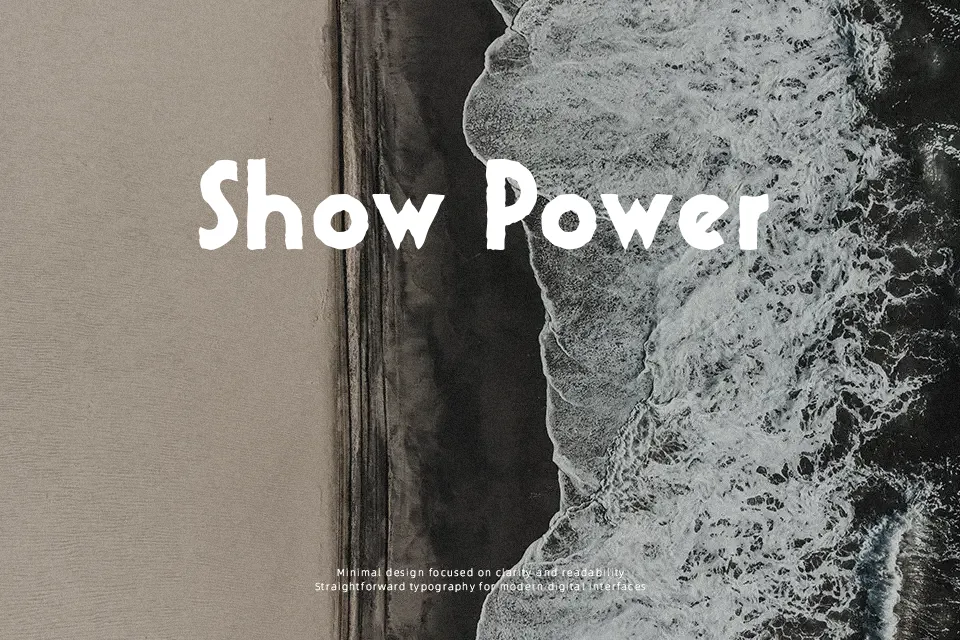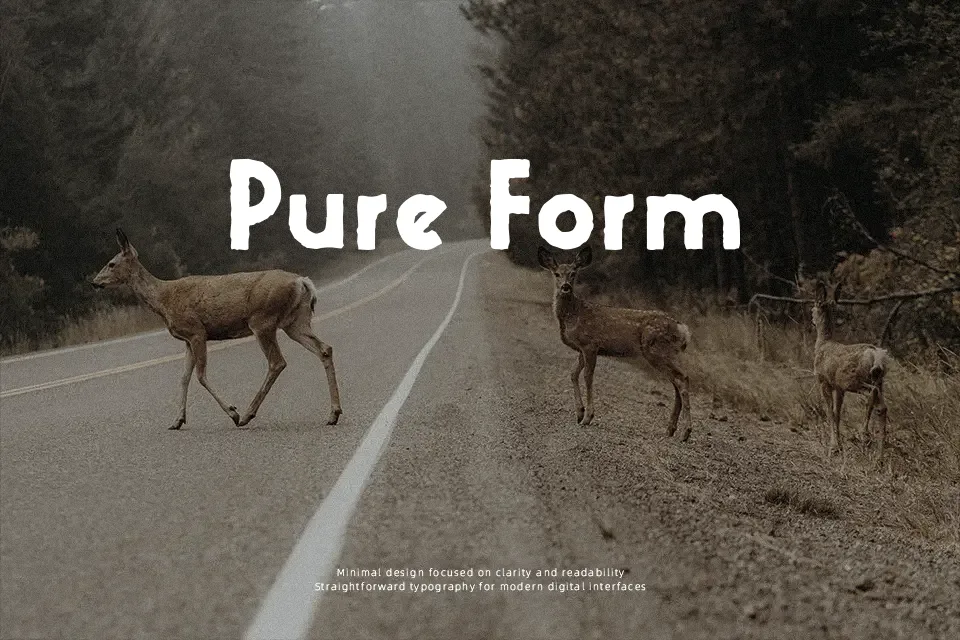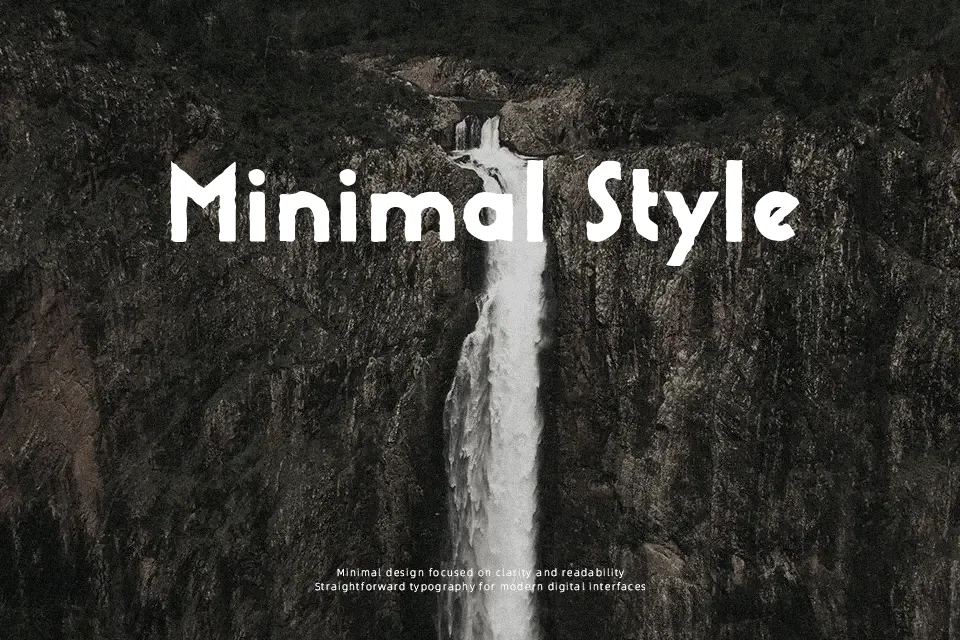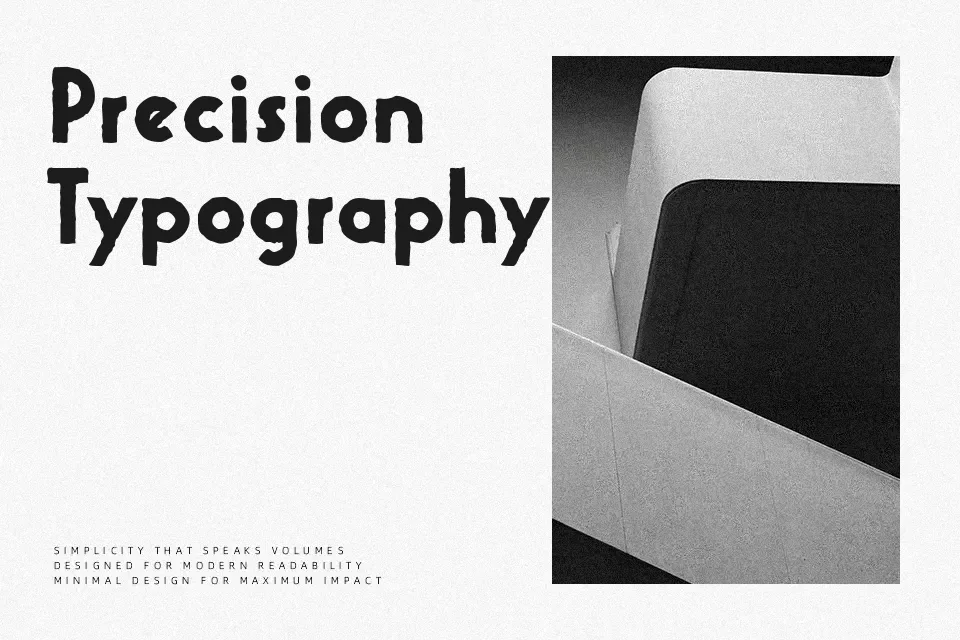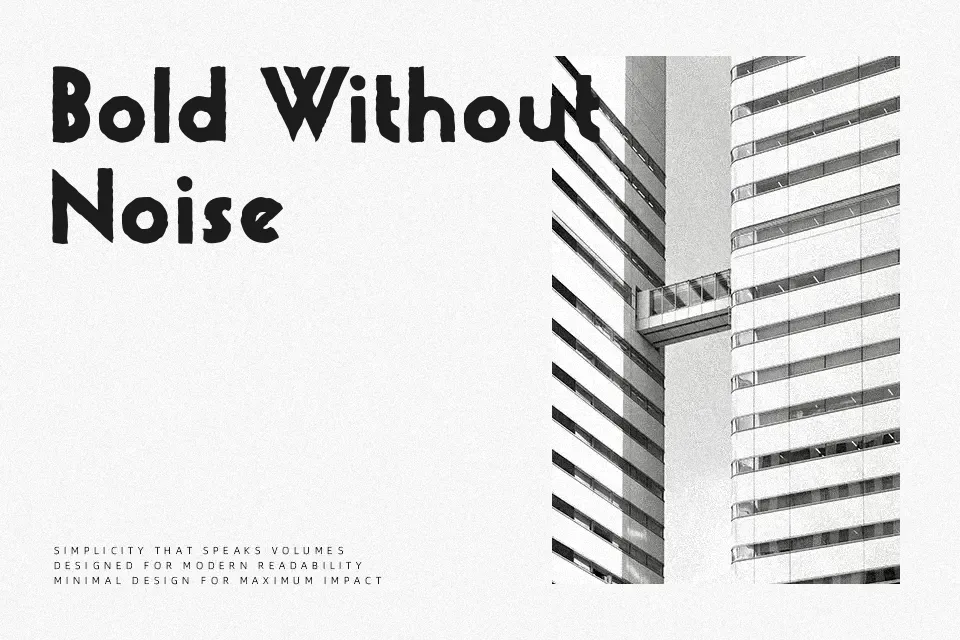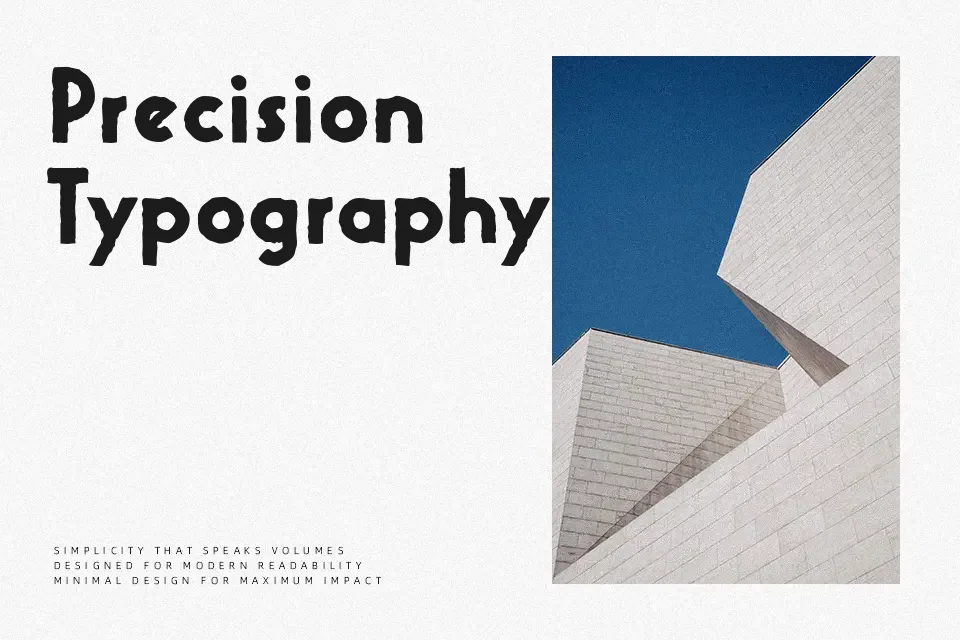
Urban Stone Font
Designed by Roland Huse Design
Urban Stone Font introduces a rugged display design characterized by bold, heavyweight sans serif proportions and heavily eroded, distressed stone textures. Solid structural silhouettes give the capitals robust visual presence, while the weathered internal cutouts and irregular ragged edges evoke aged concrete or weathered masonry. Character spacing is relatively tight to keep headline lockups dense and punchy across large-format compositions. While these eroded contours maintain distinct legibility at headline scales, the dense distressed patterns inevitably blur and deteriorate in continuous text or tiny captions. The typeface functions best when deployed as a dominant focal headline where its tactile, weathered finish can be appreciated.
Best For: streetwear apparel graphics, grunge music posters, extreme sports branding, event headline banners
Not Ideal For: continuous body text, mobile interface labels, dense legal disclaimers, small print packaging